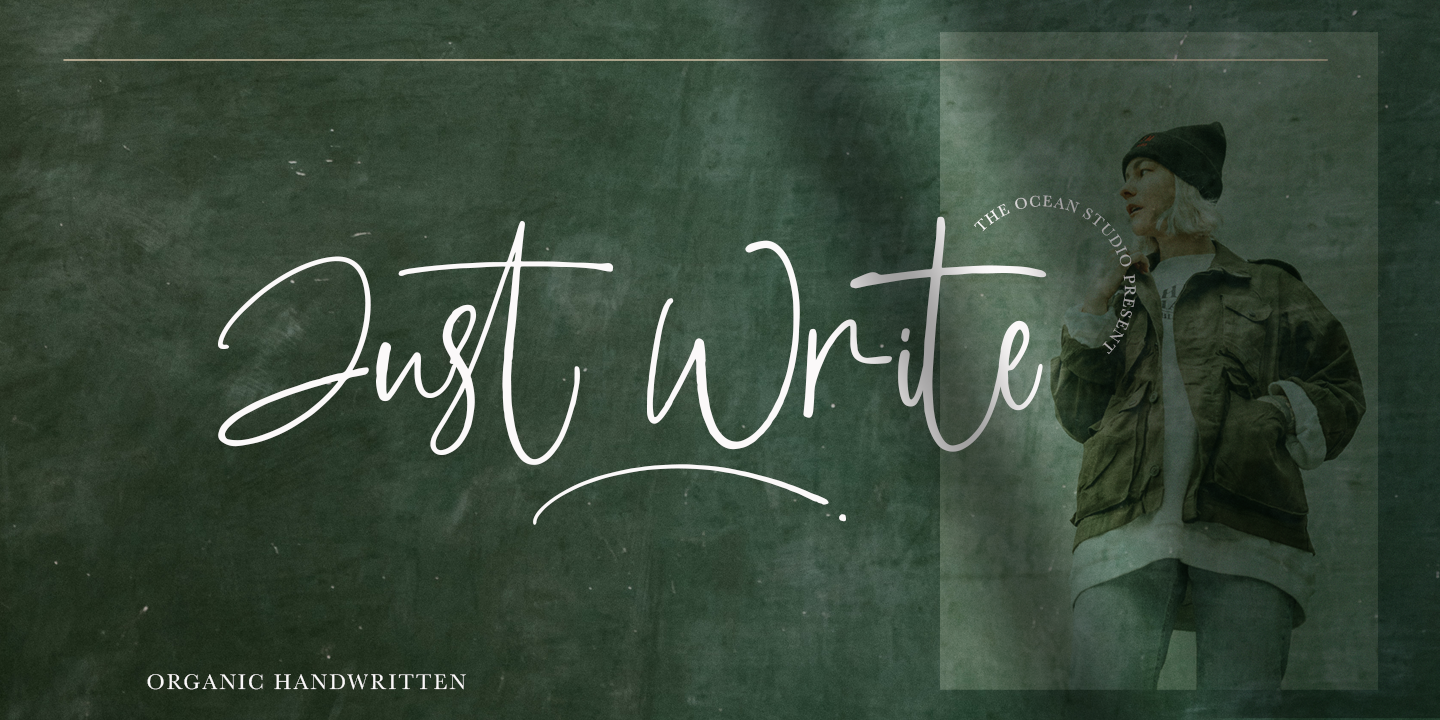
Just Write Font is perfect for handwritten projects, personal journals, greeting cards, wedding invitations, creative posters, book covers, magazine layouts, branding materials, social media graphics, and artistic typography designs.
What makes Just Write Font exciting is its authentic handwritten appearance that brings a personal touch to any design project. The natural flow and organic curves create an intimate connection with readers, making it ideal for projects that require warmth and authenticity.
Just Write Font family includes regular, bold, italic, and condensed variations, providing designers with versatile options for different design needs and hierarchy requirements.
Transform your creative projects with the elegant charm of Just Write Font Free Download. This versatile typeface offers exceptional readability while maintaining its distinctive handwritten character. Whether you're working on branding projects, editorial designs, or personal creative endeavors, this font delivers outstanding results. The carefully crafted letterforms ensure professional quality output across both digital and print media. Designers worldwide appreciate the unique personality this font brings to their work, making it a popular choice for contemporary typography solutions. Download now and experience the perfect blend of functionality and aesthetic appeal that sets your projects apart from the competition.